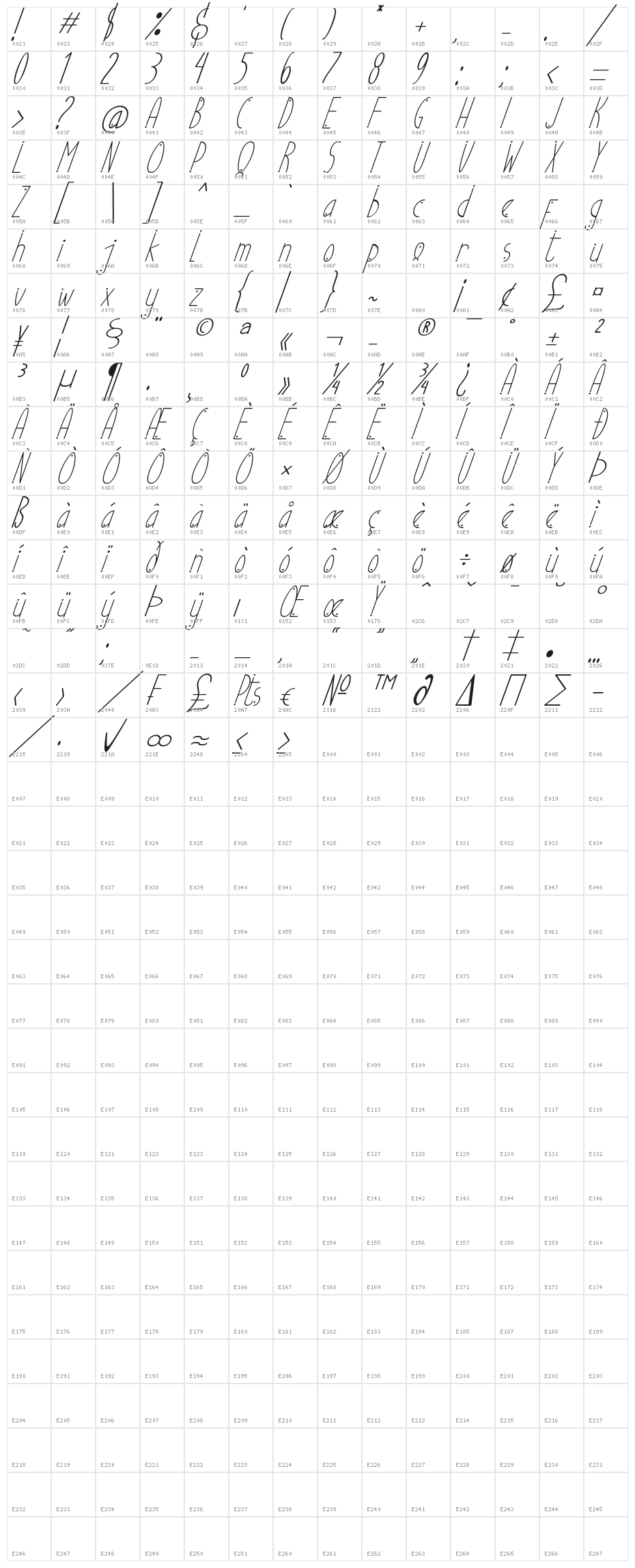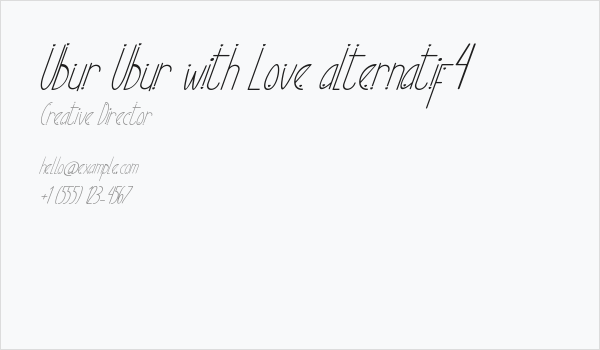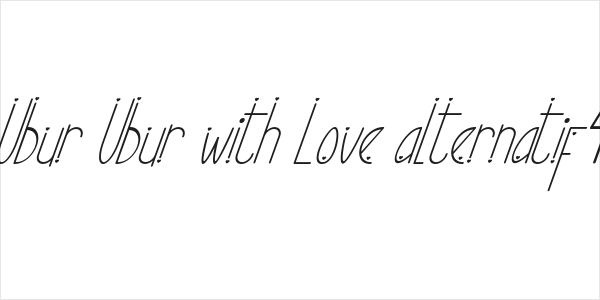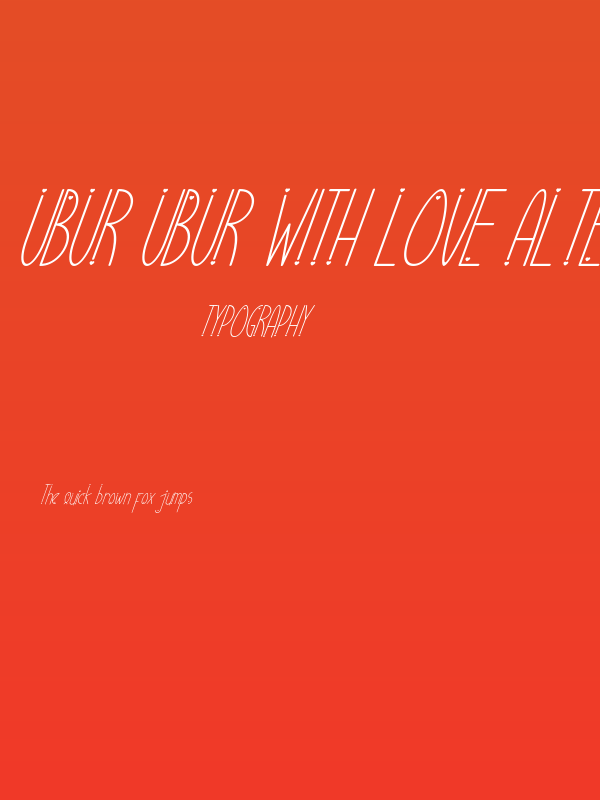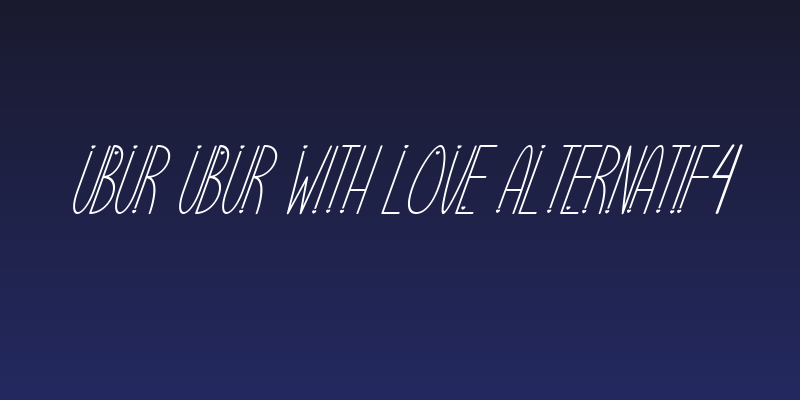
Ubur Ubur with Love alternatif4 Font
Ubur Ubur with Love alternatif4 Description
This font features a unique and playful design with elongated, thin strokes and whimsical curves. Each character is adorned with small dots, adding a decorative touch that enhances its artistic flair. The letters are slightly slanted, giving a dynamic and lively appearance. The overall style is reminiscent of handwritten script, yet maintains a modern and clean aesthetic. The numbers and special characters follow the same design principles, ensuring consistency throughout the typeface. This font is perfect for projects that require a touch of creativity and individuality.
| Proposed Projects | Ideal for creative projects such as invitations, greeting cards, posters, and branding materials that seek a unique and artistic touch. |